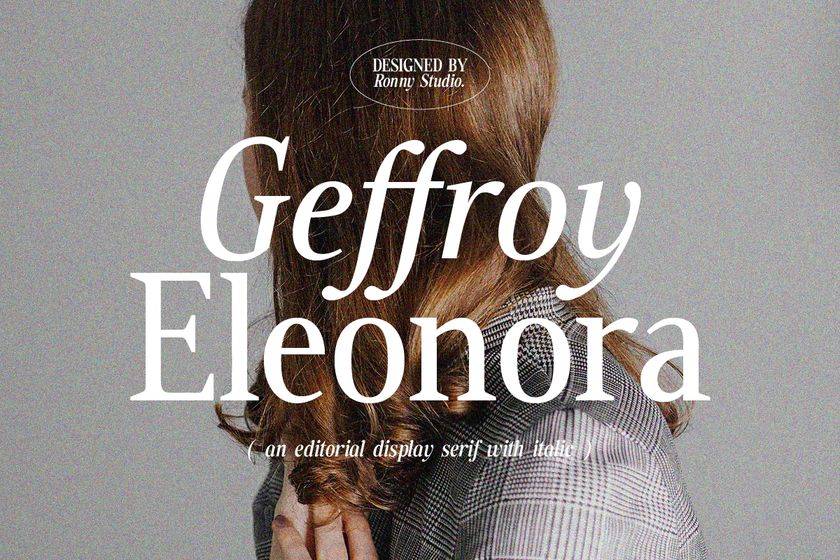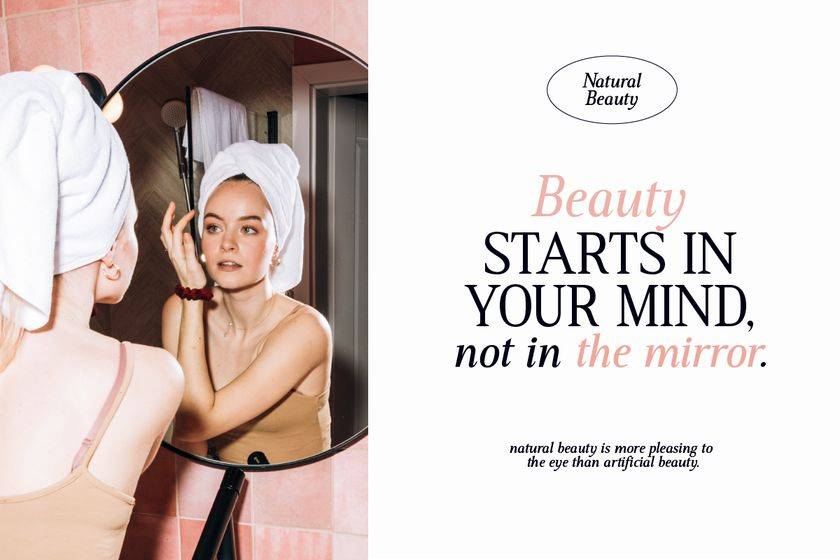
Geffroy Eleonora is a refined serif font with elegant, high-contrast strokes and graceful bracketed serifs, giving it a classic yet sophisticated feel. Its moderate x-height and traditional letterforms make it ideal for luxury branding, editorial headlines, and formal invitations where a timeless, polished look is desired. This font combines readability with style, making it perfect for designs that need a touch of elegance and authority.
Geffroy Eleonora Font
About Geffroy Eleonora Font
| Font family | Geffroy Eleonora Font |
| Designer | Rony Rizki Jaya |